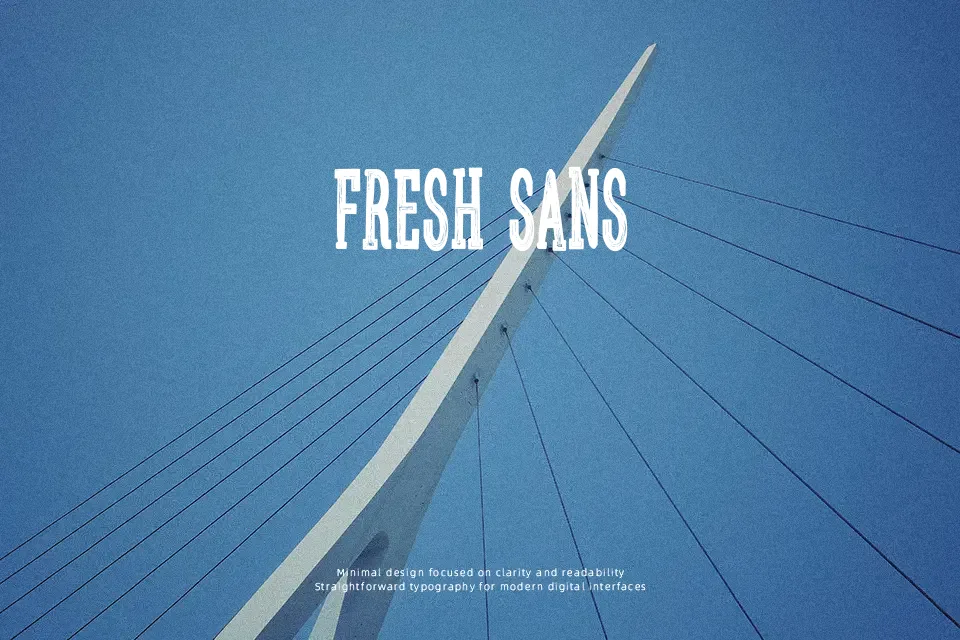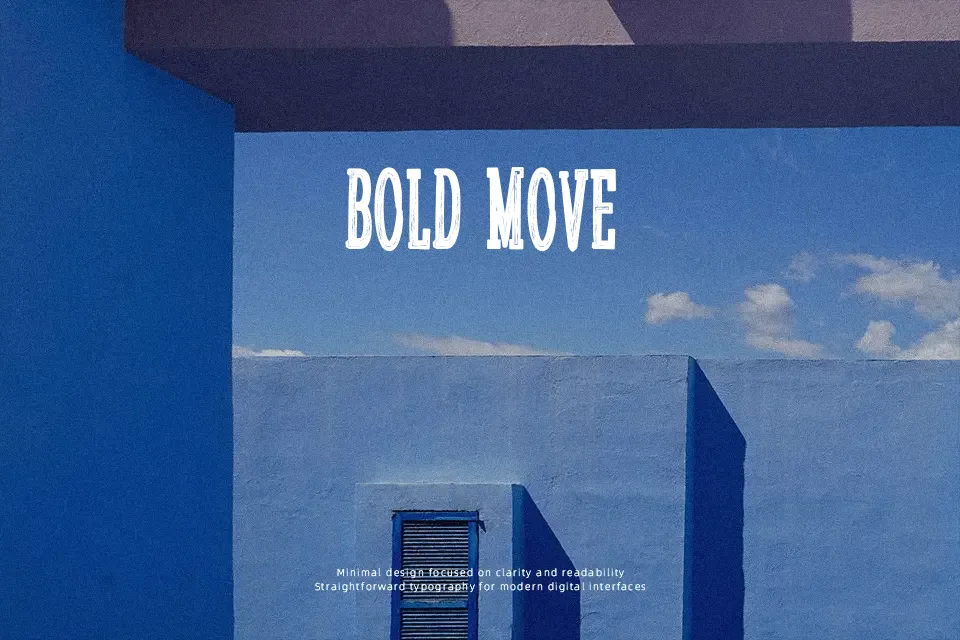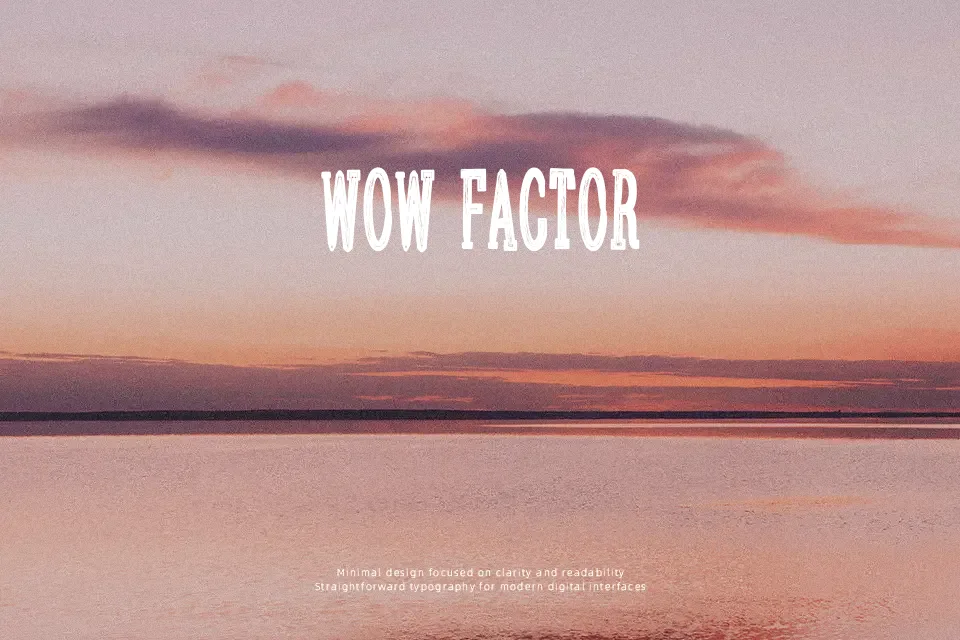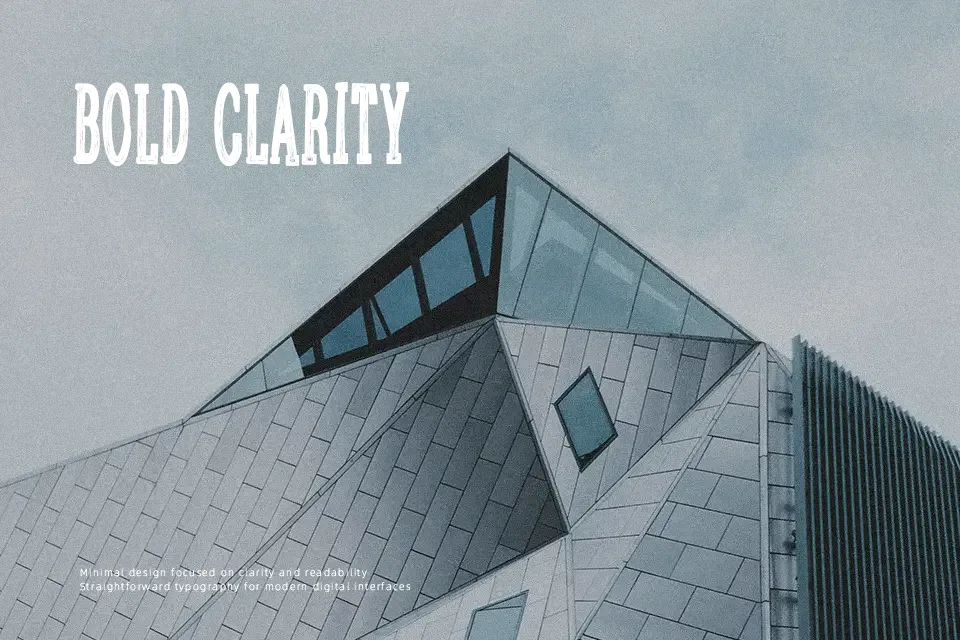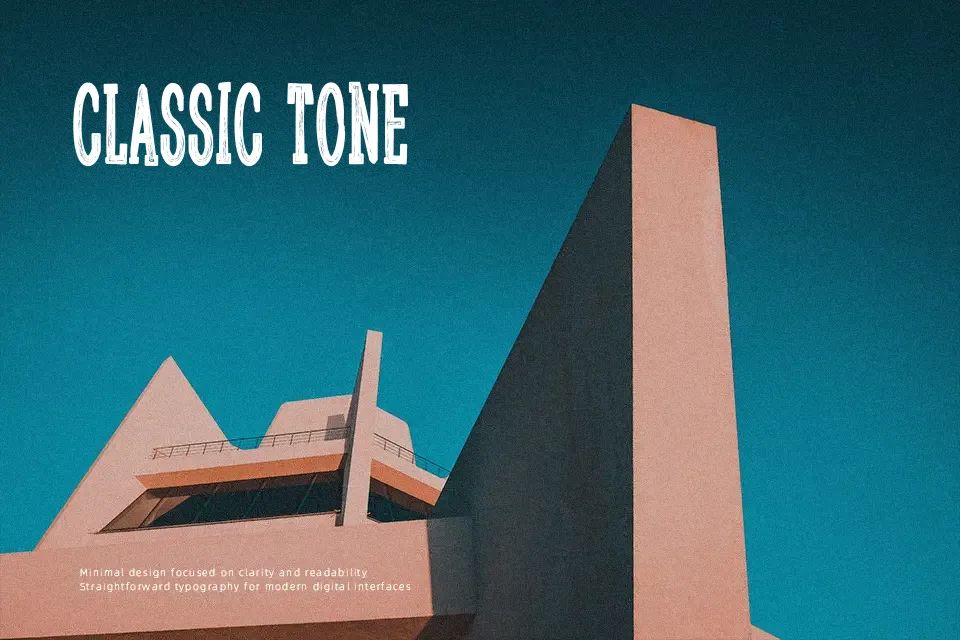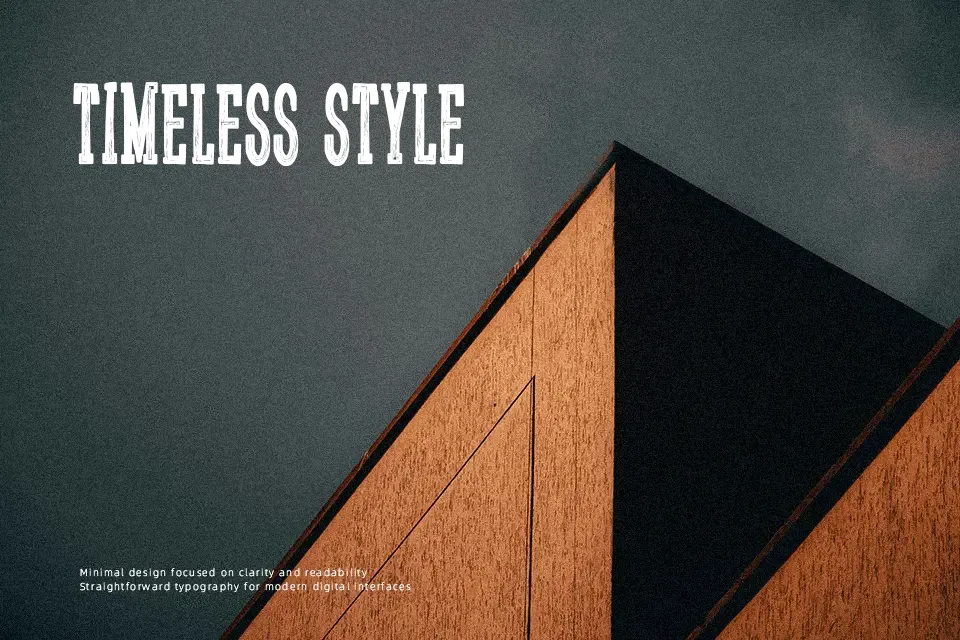
Sanek Font
Designed by Iordanis Passas
Sanek Font introduces an expressive display aesthetic defined by handcrafted stroke contours, relaxed geometry, and lively character proportions. Its visible letterforms feature moderate stroke contrast with deliberately uneven edges, giving titles an approachable and energetic personality. Balanced spacing supports comfortable legibility when set in prominent display contexts, allowing headers and short promotional copy to hold viewer attention without feeling rigid. However, the organic irregularities and decorative traits become less effective when scaled down to dense text blocks. This design functions best as an impactful display option where distinct handmade aesthetics take priority over small-scale utilitarian clarity.
apparel graphics
independent brand packaging
coffee shop menu headers
technical manuals
corporate spreadsheet data